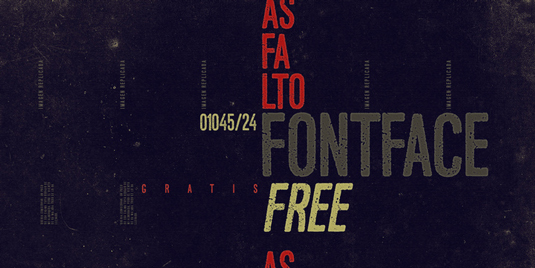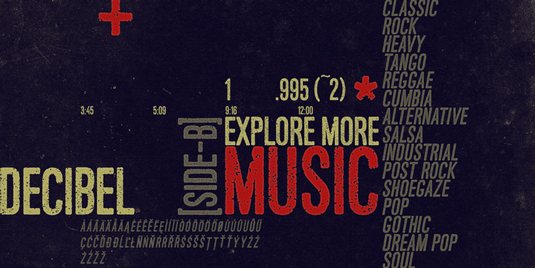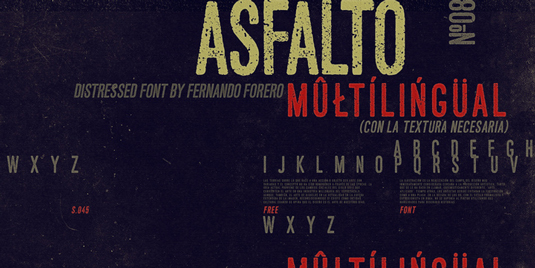
Font of the day: Asfalto
Asfalto by Fernando Forero
Graphic designer Fernando Forero is behind today's typeface of choice, Asfalto. A distressed font, this font is great for creating striking designs with a vintage feel.